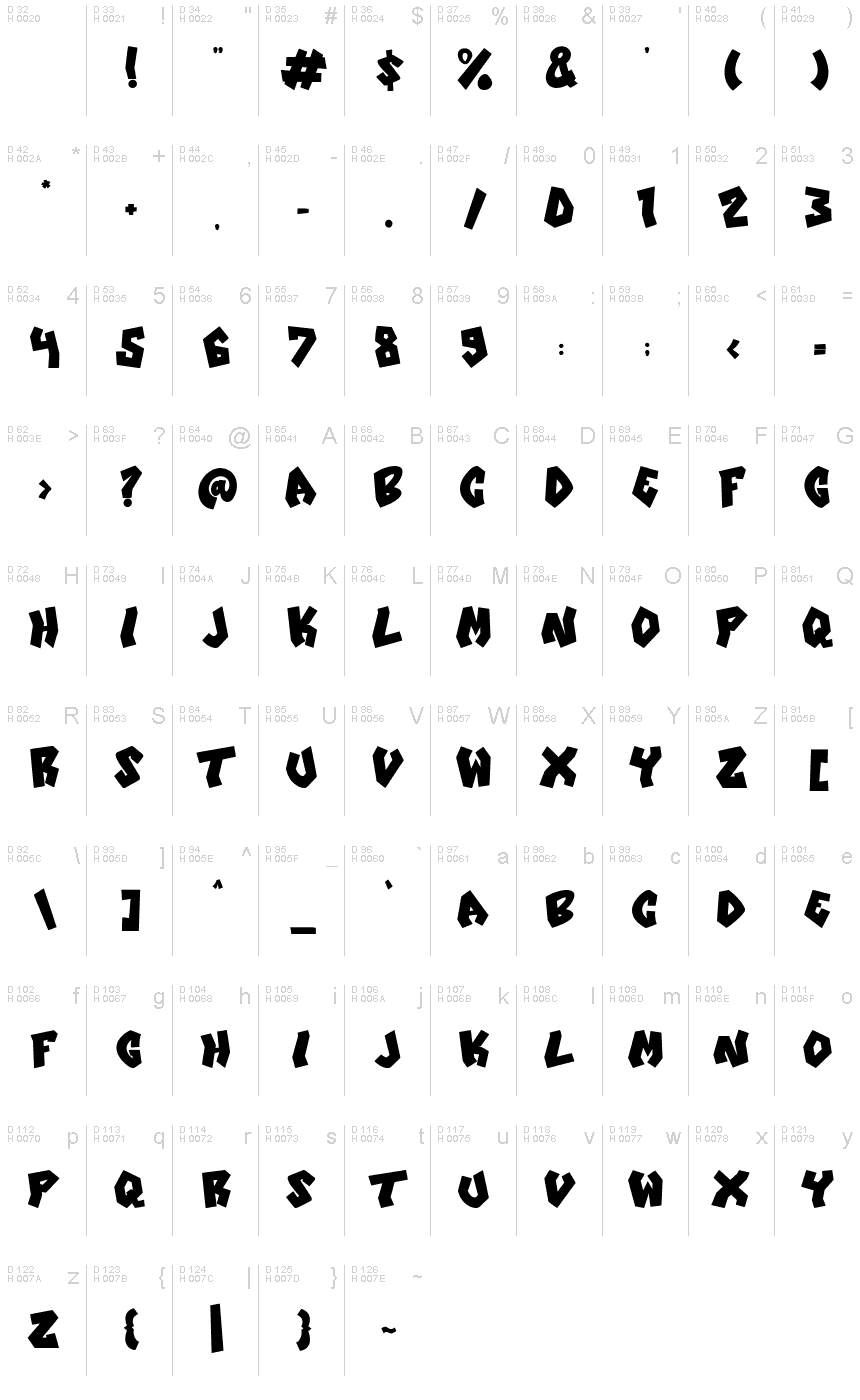
Night Fashion
Night Fashion by Hatf Type is a bold display font with a unique distorted cartoon style, perfect for creative projects that require a touch of playfulness and edginess. Its thick lines and exaggerated curves make it suitable for fashion-related designs such as apparel logos, magazine titles, or advertisements. The font's bold weight emphasizes its dramatic flair, making it ideal for posters, flyers, and other promotional materials that need to grab attention. With Night Fashion, your design will stand out from the crowd and leave a lasting impression on your audience.